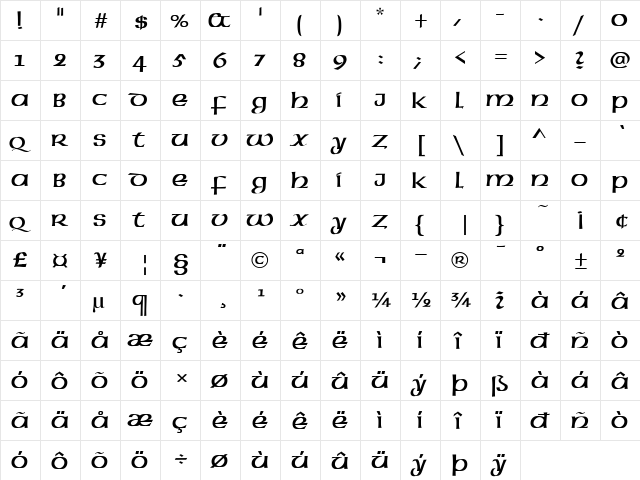
American Uncial D Regular
Design Context for American Uncial D Typeface
American Uncial D is a composed and adaptable typeface that performs quietly and consistently across a wide range of design contexts.